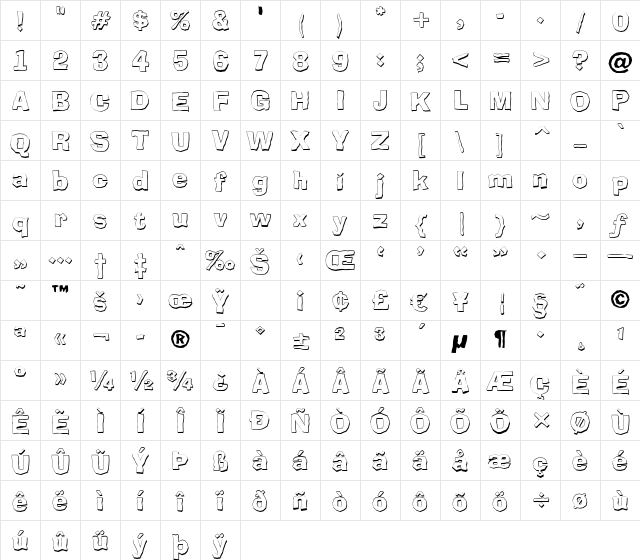
a_Broker3Dxtr Regular
Designer: W.Chufarofsky & M.Slutsker
Design Context for a_Broker3Dxtr
a_Broker3Dxtr is a composed and adaptable typeface that performs quietly and consistently across a wide range of design contexts.
Pro Tip: Use a_Broker3Dxtr in both headline and body roles to test its range before committing to a single application.